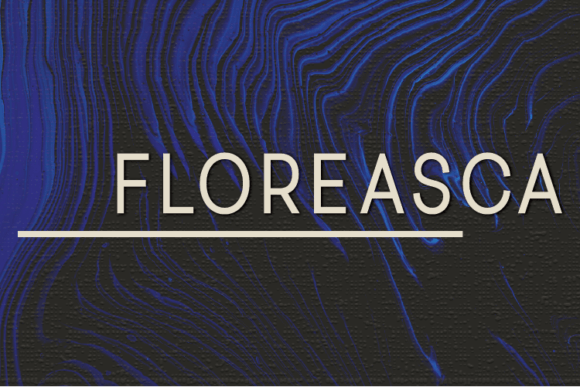
Welcome to the realm of typography, where the Floreasca Font stands as a beacon of creativity, elegance, and readability. Let your imagination soar with this enchanting font, designed with a modern flair and a timeless appeal. Its clean lines and gentle curves invite you to embark on a journey of visual delight, transforming your creative visions into tangible masterpieces.
Designed with an unwavering focus on readability, the Floreasca Font is a gift to educators and students alike. Its carefully crafted characters ensure that every word, every sentence, and every page becomes a joy to behold. Its crisp and legible design makes it the perfect companion for textbooks, assignments, and presentations. Witness the transformation as your words dance across the screen or leap off the printed page, captivating your audience with their clarity and grace.
Beyond the classroom, the Floreasca Font flourishes in the world of design. Its versatility and charm make it a sought-after choice for logos, branding, and advertisements. Its ability to effortlessly convey messages with style and sophistication is unparalleled. Picture your company's logo adorned with the Floreasca Font, exuding an air of professionalism and innovation that will leave a lasting impression on your clients. Or envision your marketing materials infused with the charm of the Floreasca Font, capturing attention and generating excitement for your products or services.
Floreasca Font is a treasure trove of creativity, a font that adapts effortlessly to a myriad of design projects. Its elegant curves and sleek lines lend a touch of sophistication to wedding invitations, birth announcements, and greeting cards. Unleash your creativity and let the Floreasca Font transform your personal projects into heartfelt works of art that will be cherished for years to come.
As you embark on your creative journey with the Floreasca Font, let your imagination run wild. Allow its beauty to permeate your designs, adding a touch of artistry to logos, brochures, posters, and social media graphics. Witness the transformation as the Floreasca Font elevates your work to new heights, leaving an indelible mark on the minds of your audience.